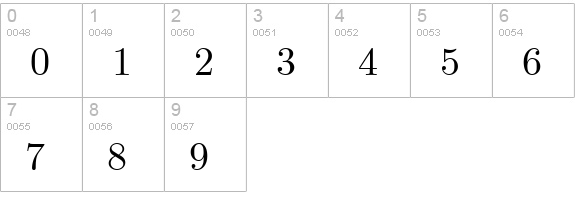
TeXplus RM is a visually stunning font that brings a touch of elegance and sophistication to any design. Its sleek and modern design makes it perfect for a wide range of projects, from branding and packaging to headlines and invitations. But what sets TeXplus RM apart is not just its visual appeal, but also the fact that it is completely free. Yes, you read that right - this amazing font is freely available to download at FontsMarket.com. With TeXplus RM, you can add a touch of professionalism and style to your designs without having to worry about any licensing fees or restrictions. Whether you are a designer, a student, or simply someone who appreciates high-quality fonts, TeXplus RM is a must-have in your font library. So why wait? Head over to FontsMarket.com and download TeXplus RM today, and unlock a world of creative possibilities. Whether you are designing a logo, creating a website, or working on a print project, TeXplus RM will elevate your work to new heights. Embrace the freedom of creativity with this exceptional font.